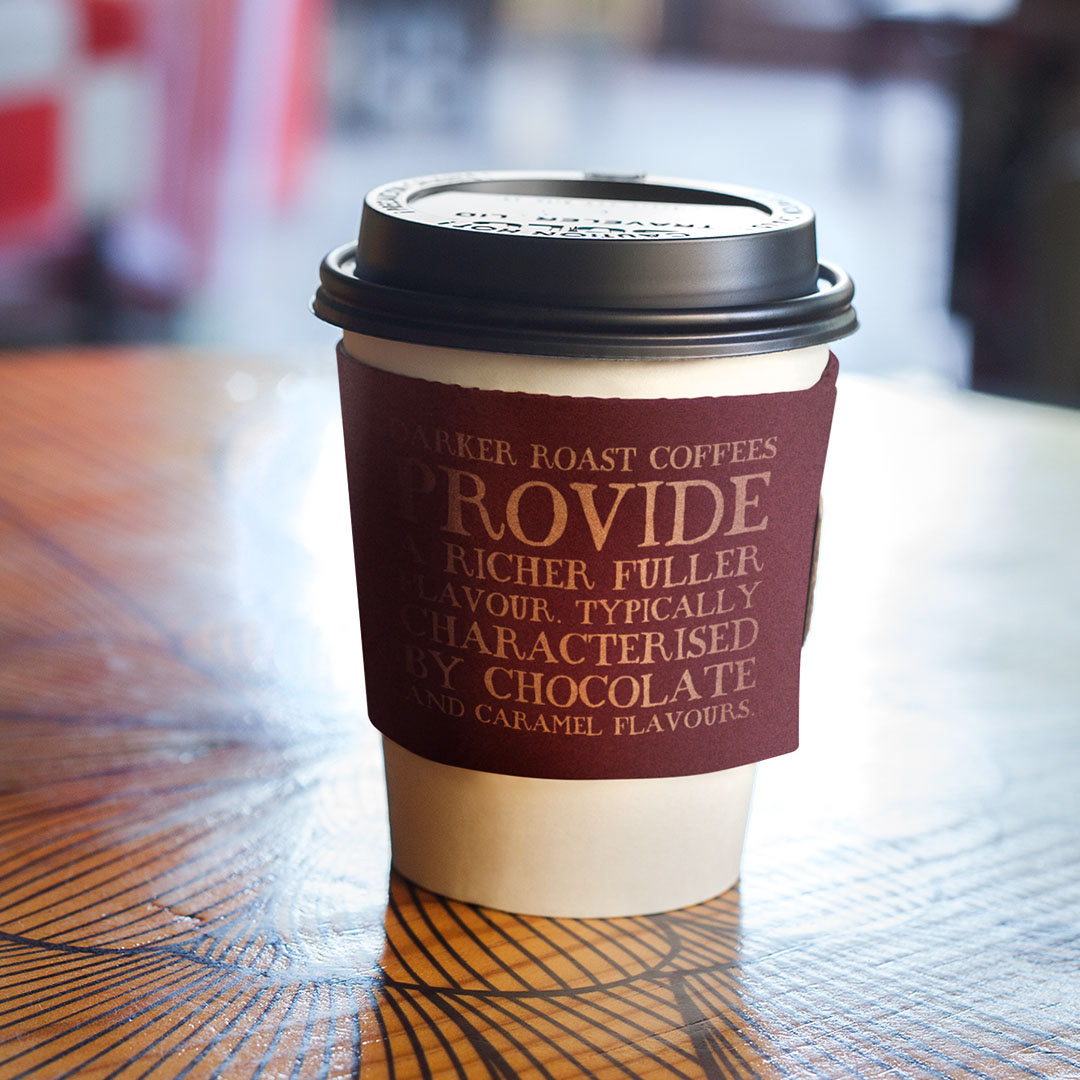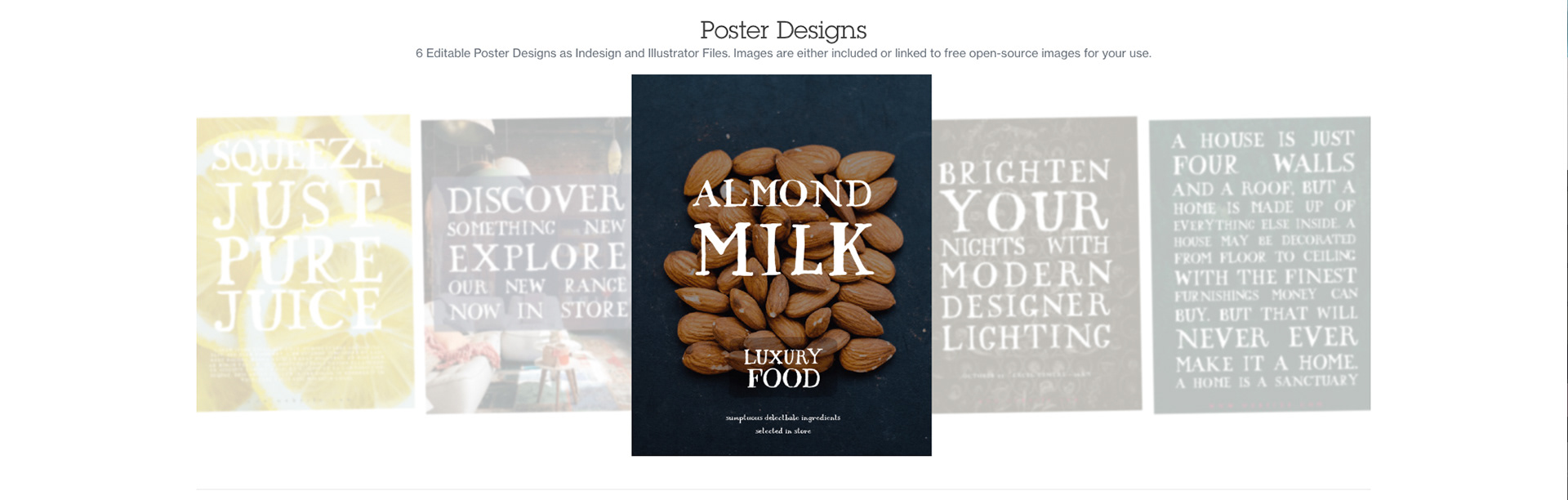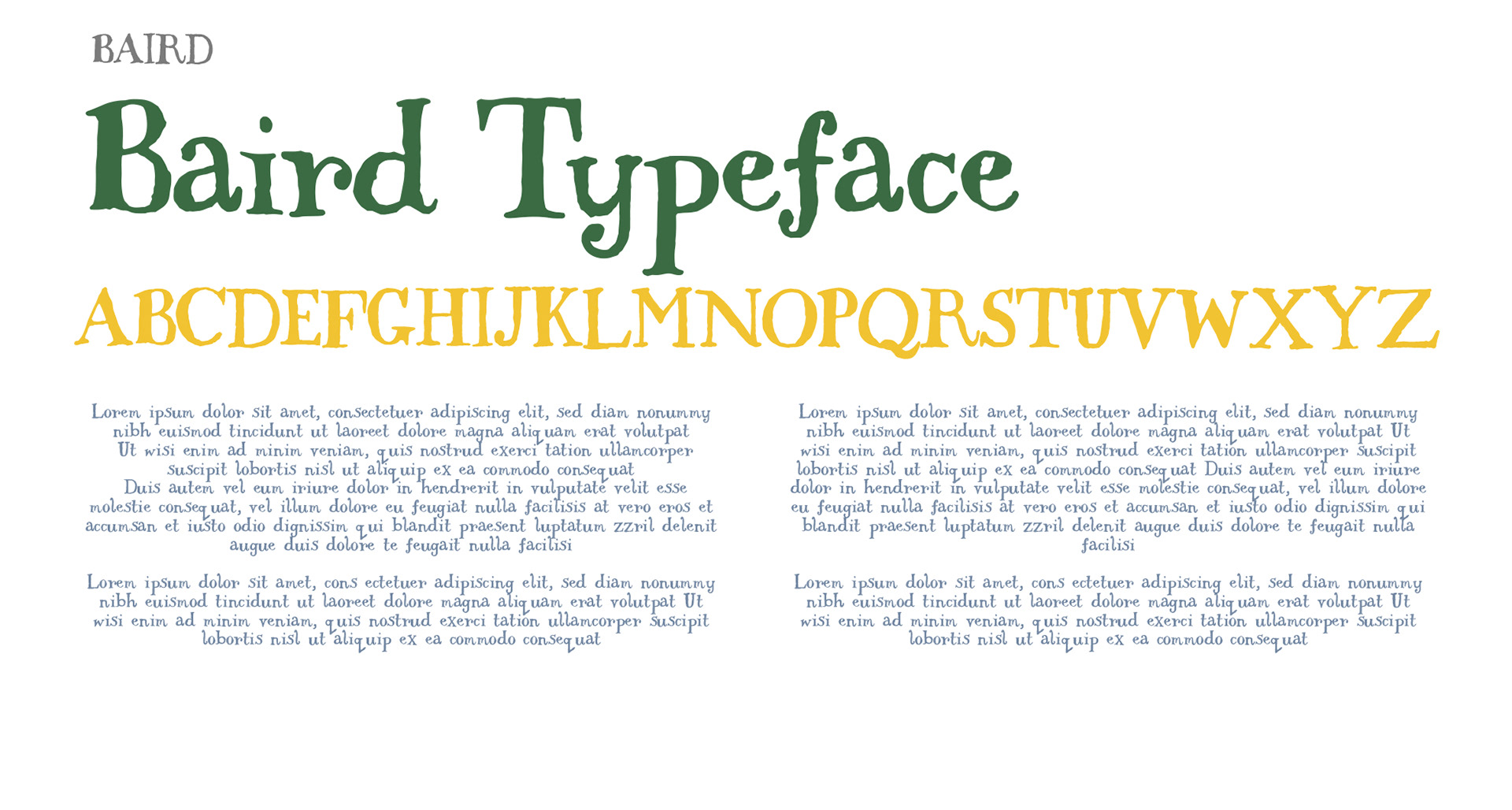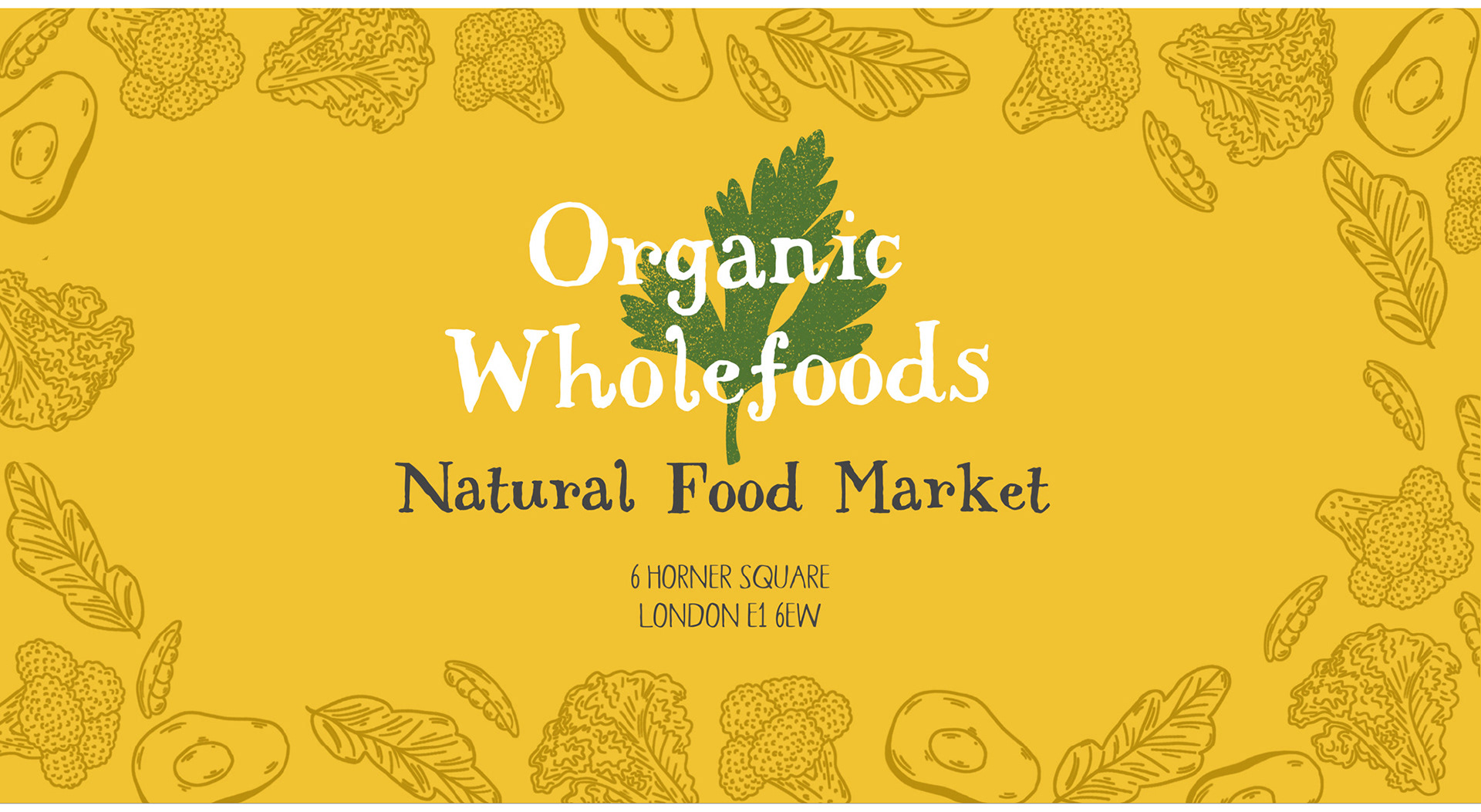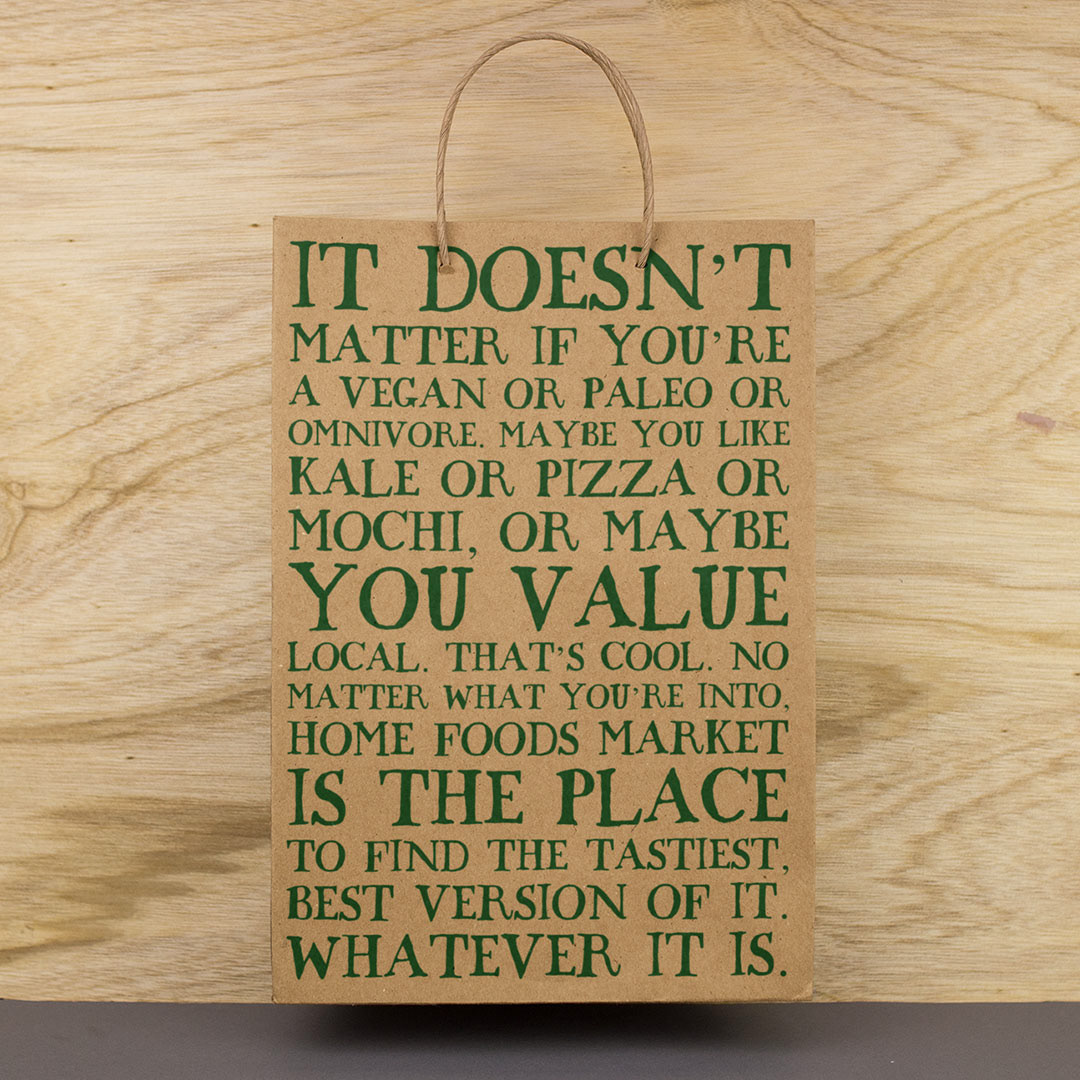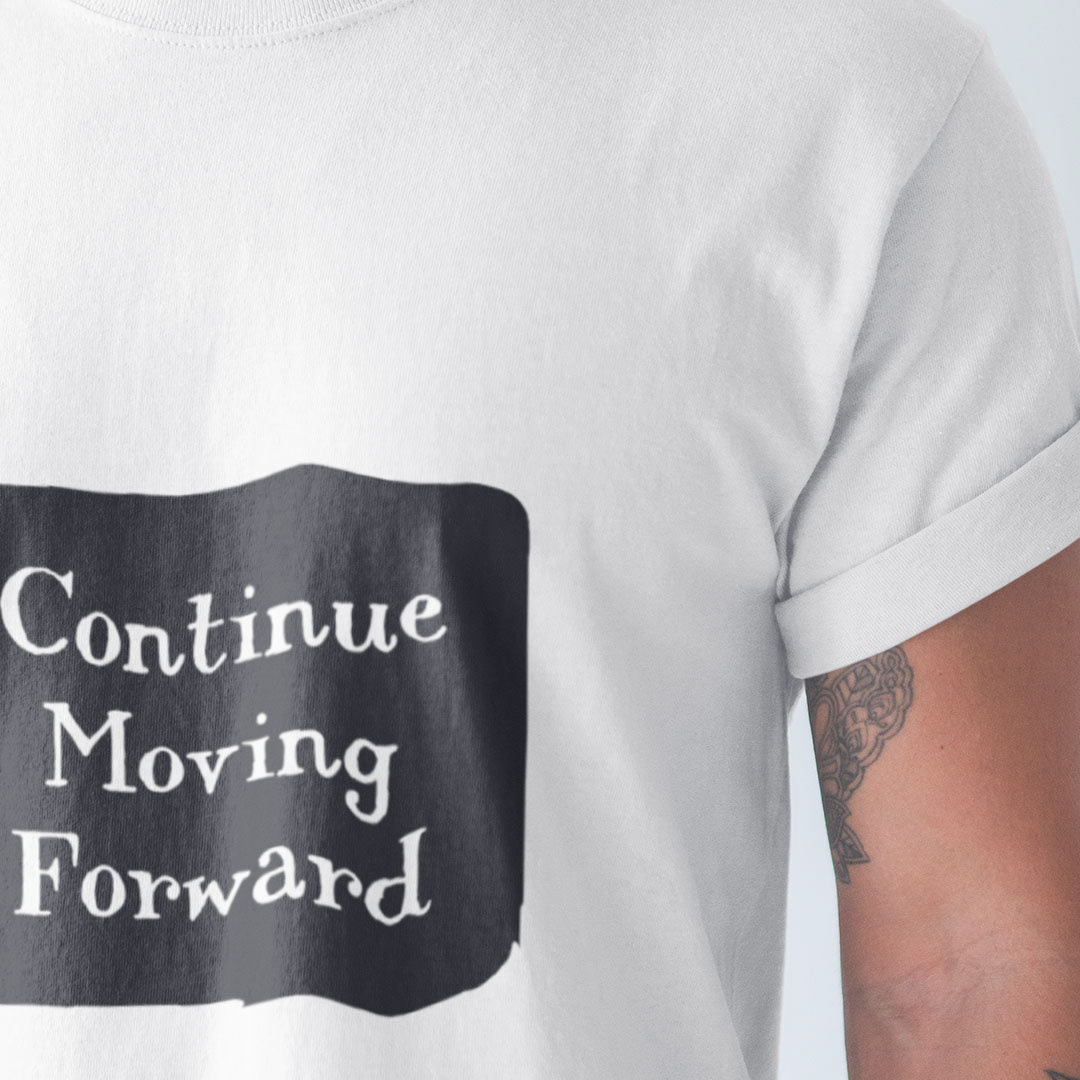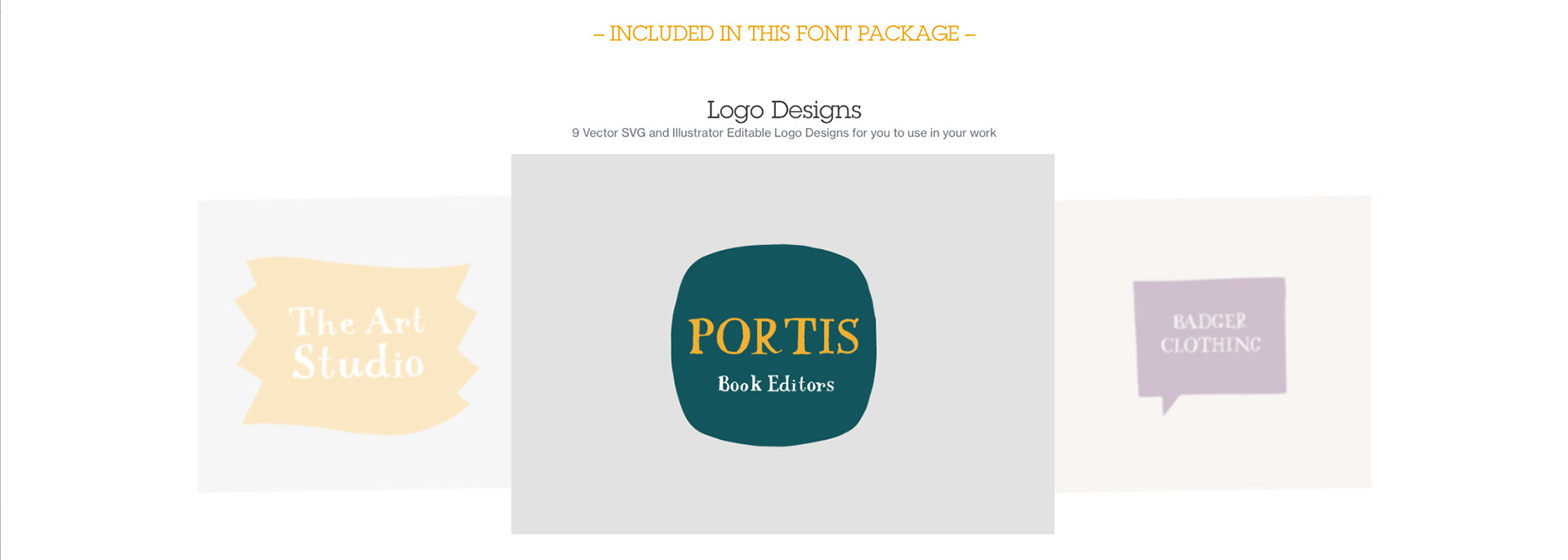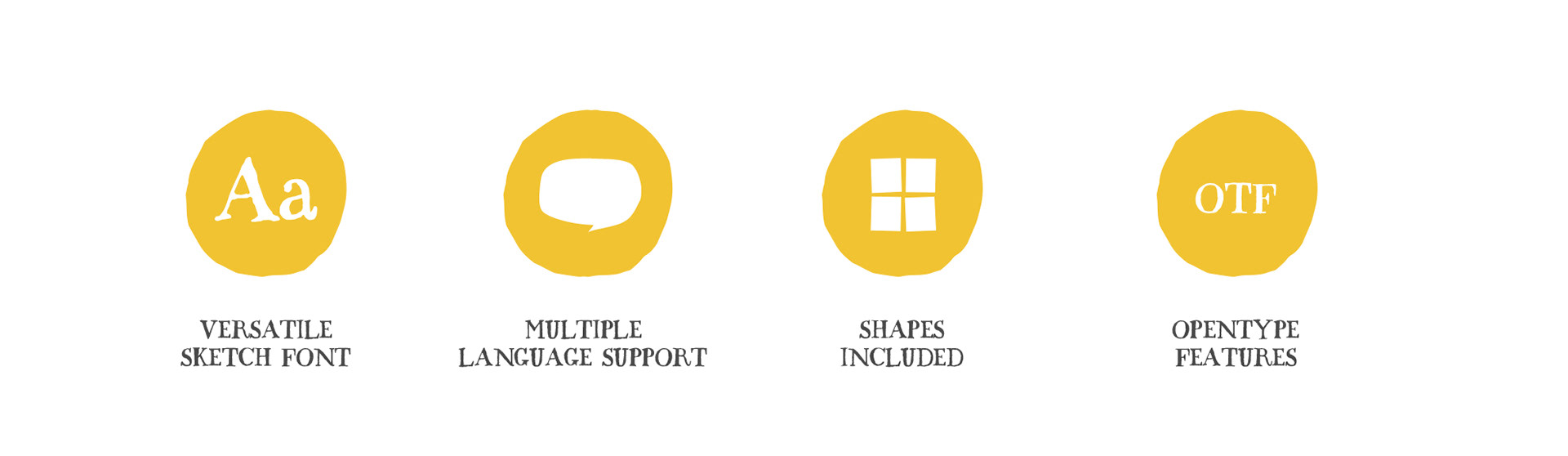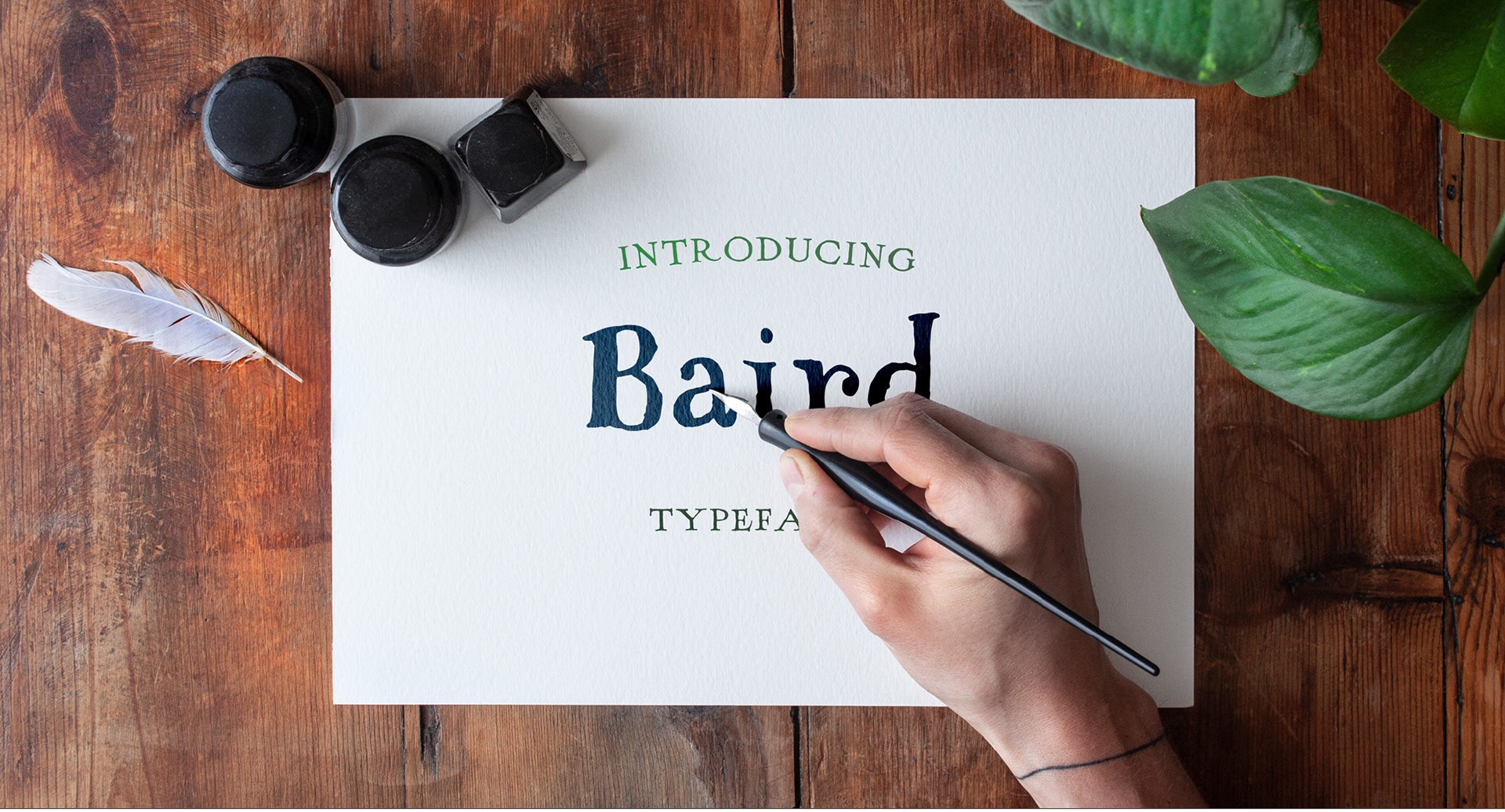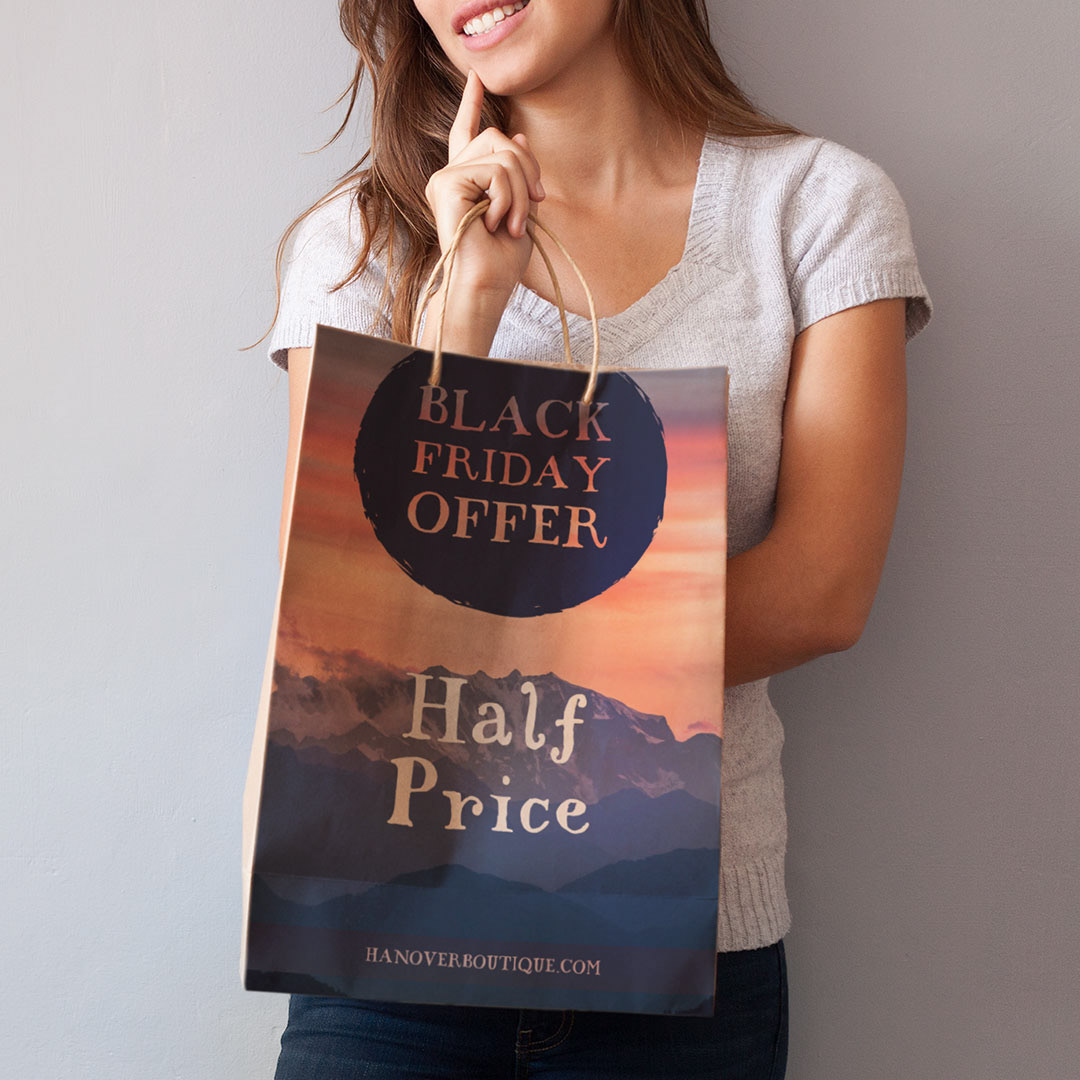
Baird is a hand sketched font with soul. A lovingly hand-sketch serif font, creatively elegant and eccentric with carefree fun. The Baird font, with all its imperfections and original unfinished edges, it’s bound to make a bold statement on anything from greeting cards and invitations, to personalised logos and handwritten quotes.